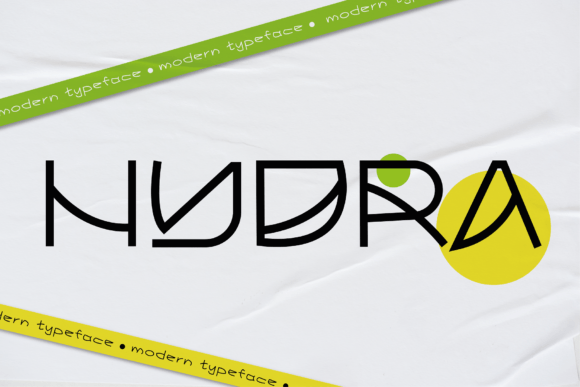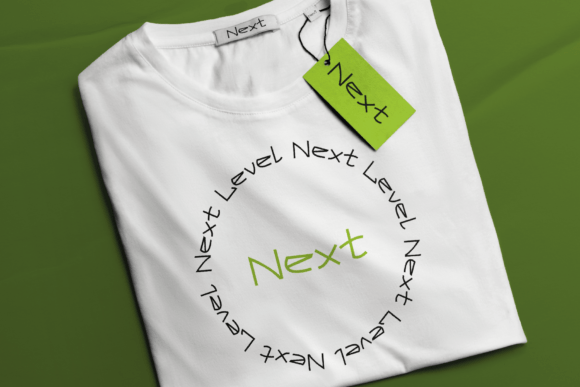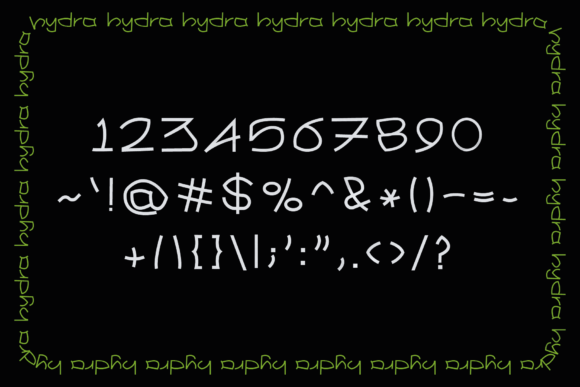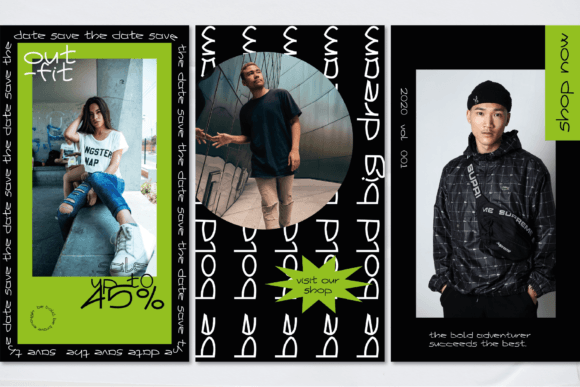
Stand Out with the Quirky Hydra Font
Have you ever been stuck in a design rut, staring at a blank page or screen, trying to come up with that one idea that will make your project truly shine? You know, that ‘aha’ moment when everything clicks into place and you can’t wait to share it with the world? For designers, those moments are what make all the hard work worth it.
That’s where the Hydra Font comes in – an experimental display typeface that’s equal parts quirky and hip. Its intricate letterforms are designed to grab attention and make your designs stand out from the crowd. Whether you’re working on a fashion brand, creating a poster, or designing a website, the Hydra Font is the perfect tool to take your designs to the next level.
With the Hydra Font, you’ll be able to add a unique touch to your projects and make them truly unforgettable. Its versatility and edgy style make it an invaluable asset for any designer looking to push the boundaries of their creativity.
Hydra Font Key Features
- Font Size: Hydra Font comes in 4 different font sizes, including Extra Light, Light, Regular, and Bold, allowing users to choose the perfect weight for their design.
- Unique Character Set: Hydra Font features a unique character set that includes a wide range of glyphs, including international characters, ligatures, and swashes, adding a touch of elegance and sophistication to any design.
- Font Pairing: Hydra Font is designed to pair well with a variety of other fonts, including serif and sans-serif fonts, allowing users to create a wide range of typography combinations and styles.
Hydra Font Review
I recently had the chance to work with the Hydra font, and I have to say it’s an interesting choice for designers. ✨ One of the things that works well is its modern and sleek aesthetic, which makes it perfect for creating a contemporary feel in your designs. The font is also highly legible, even at smaller sizes, which is a major plus for anyone working with text-heavy materials.
Another advantage of the Hydra font is its versatility. It comes in a range of weights, from light to bold, which makes it easy to create contrast and visual interest in your designs. Additionally, the font is highly customizable, allowing you to adjust the spacing, line height, and other parameters to suit your specific needs.
- ⚠️ Limited character set: One of the biggest drawbacks of the Hydra font is its limited character set, which may not be suitable for languages that require a wide range of characters.
- ⚠️ Not ideal for body text: While the Hydra font is great for headlines and titles, it may not be the best choice for body text, as it can be a bit too ornate and distracting for large blocks of text.
Overall, I would say that the Hydra font is a solid choice for designers who want to add a touch of modernity to their work. While it may have some limitations, it’s a great option for creating eye-catching headlines and titles. With its sleek aesthetic and high level of customization, it’s definitely worth considering for your next design project.
Some common use cases for Hydra Font include:
– Creating eye-catching headlines and titles.
– Adding a unique touch to business cards and brochures.
– Using it for web design and digital marketing materials.
– Experimenting with different font sizes and colors to create a visually appealing effect.